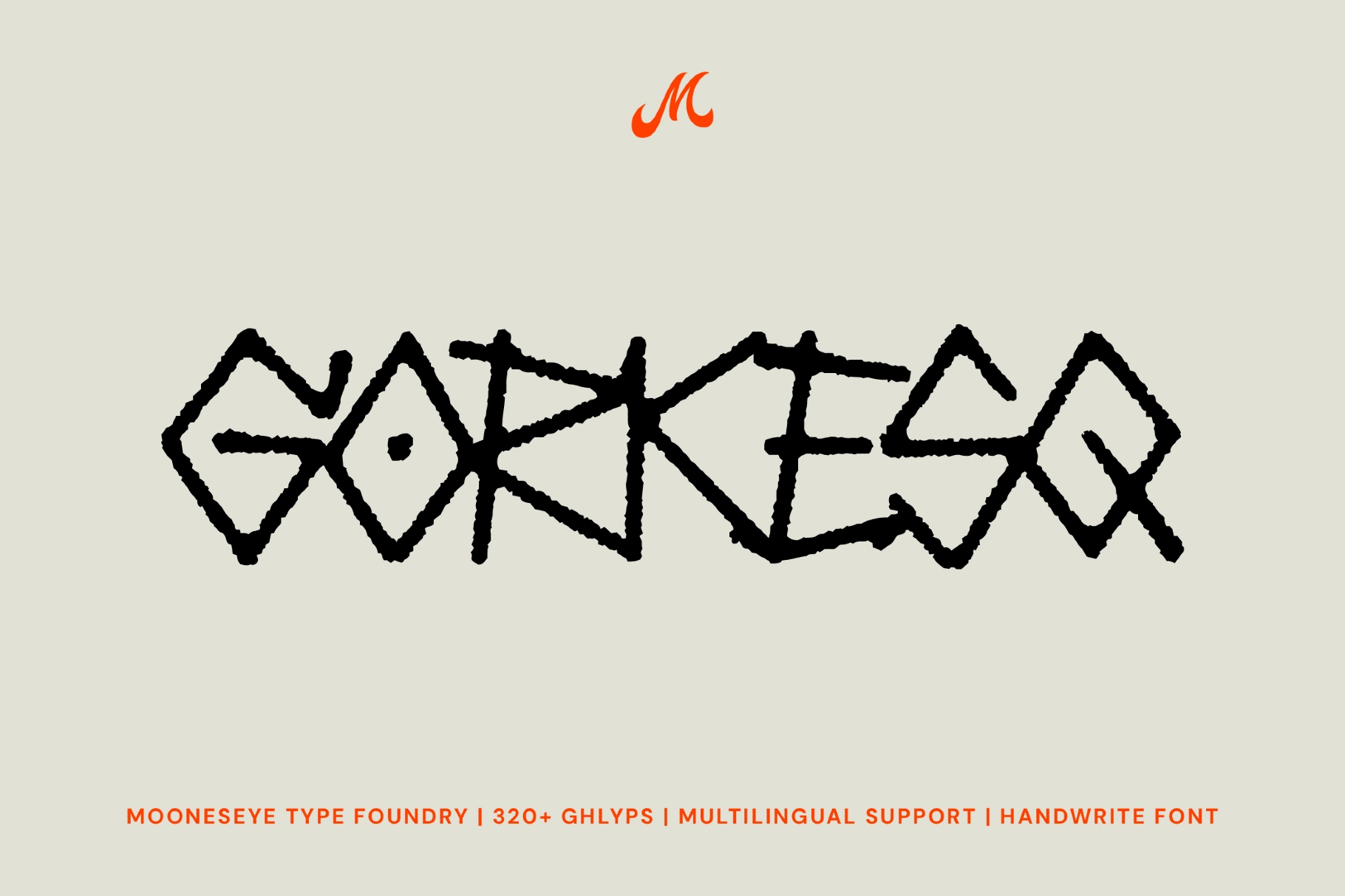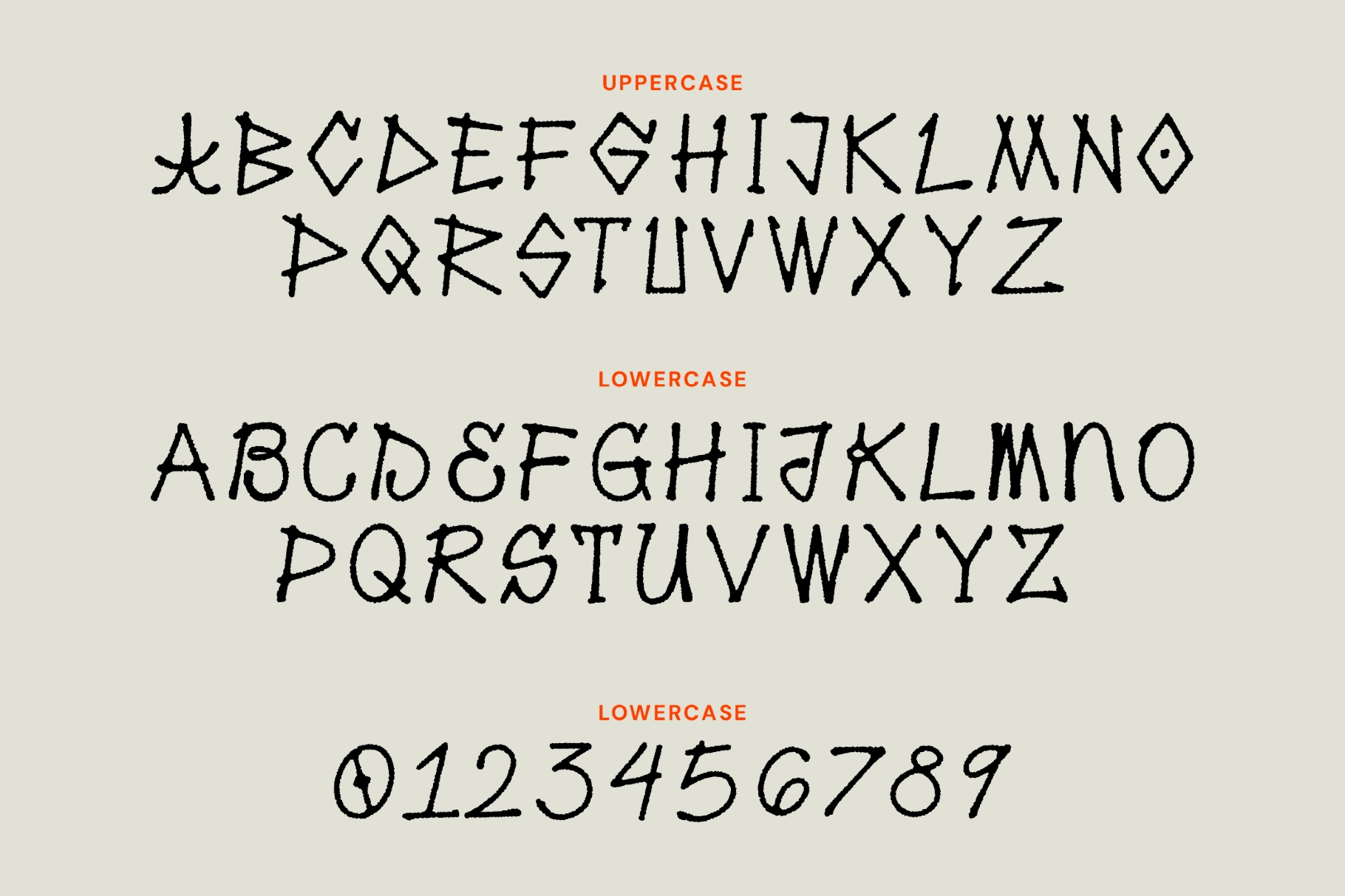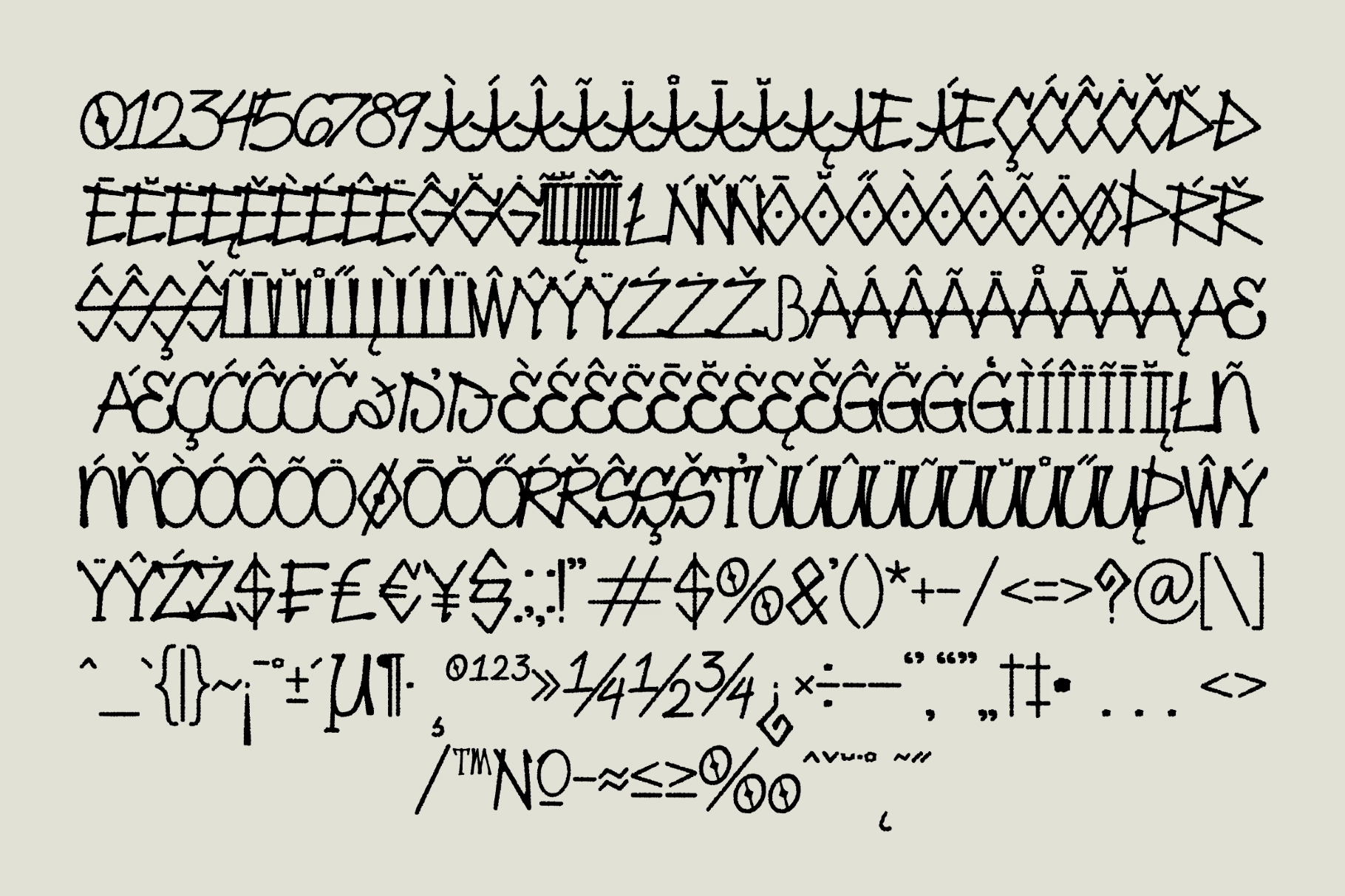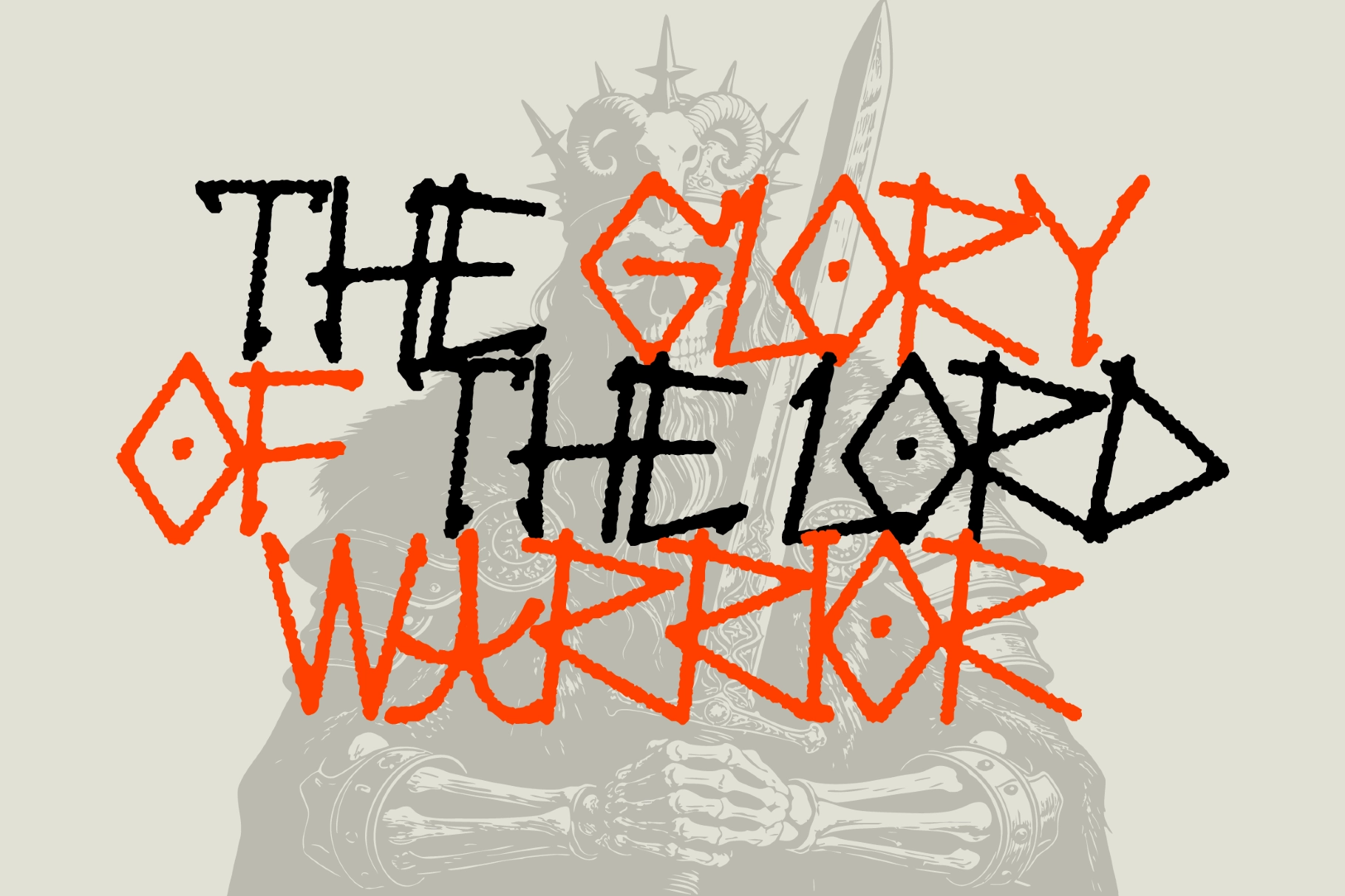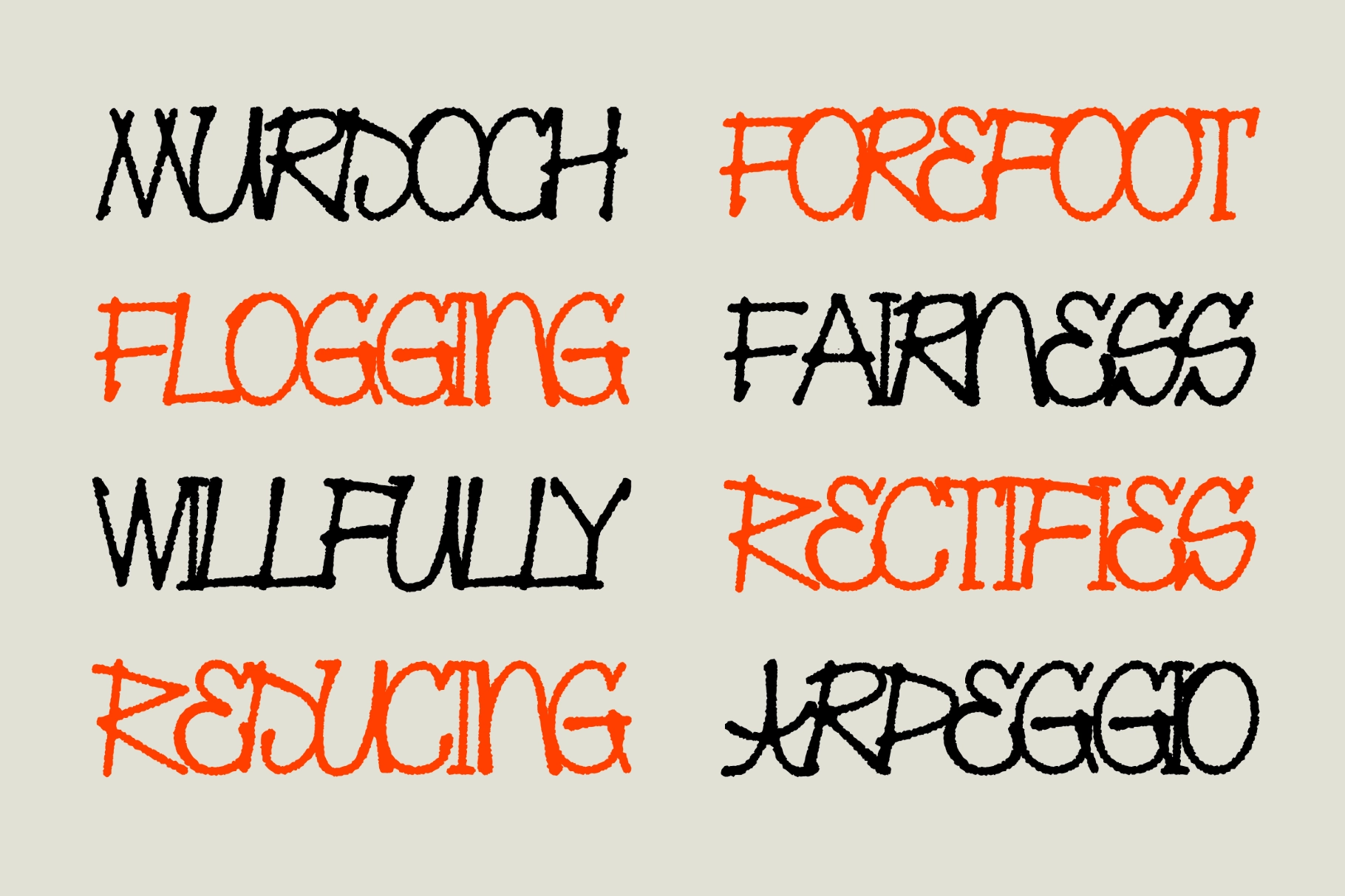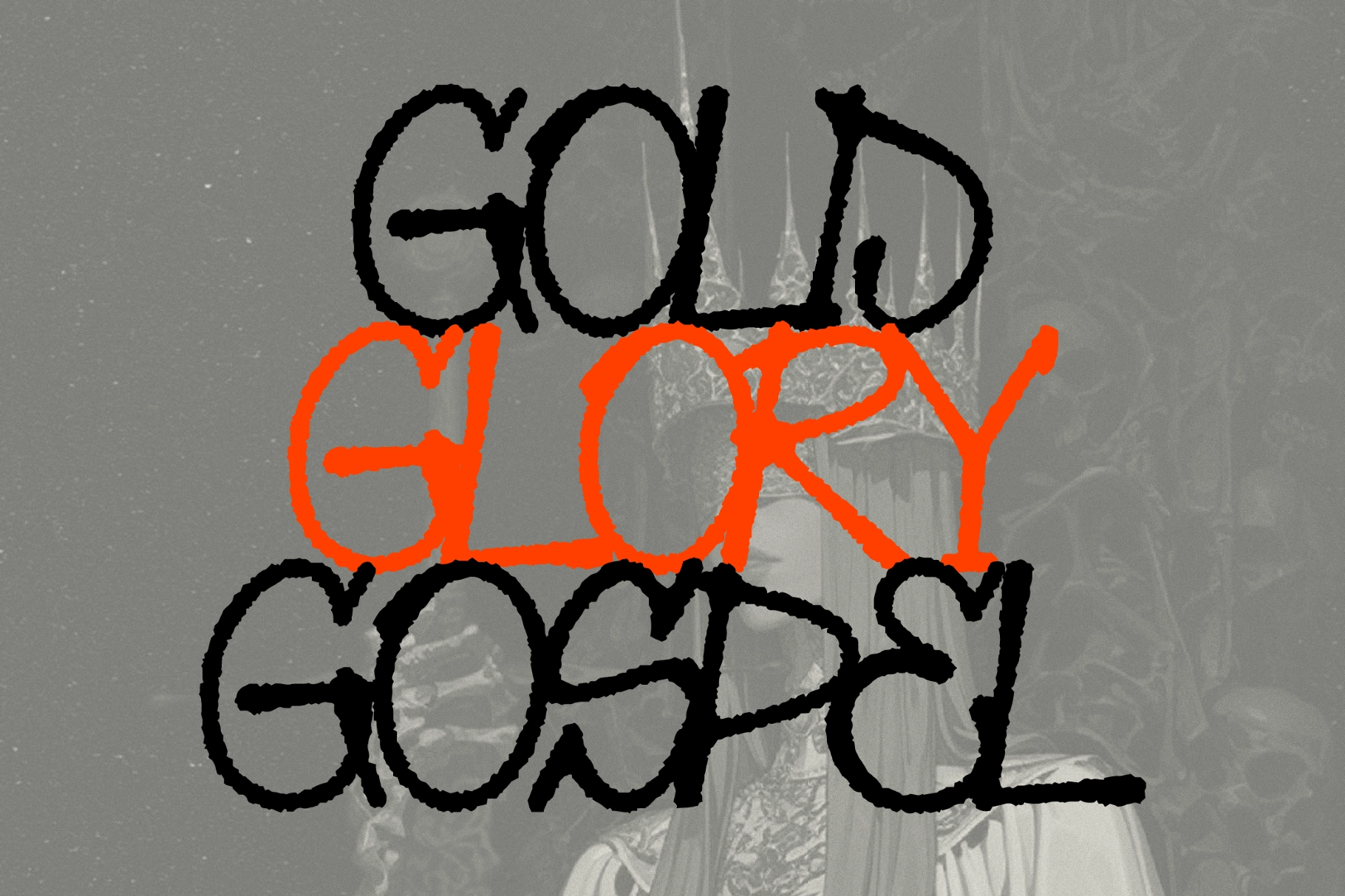
Gorkesq - Ancient Handwritten Display Font
GORKESQ
ITALIC
This hand-drawn display font has jagged strokes, rough ink texture, rune-like shapes, and a raw symbolic rhythm. Its uppercase characters are sharp and angular, while the lowercase forms are looser and stranger, giving dark fantasy work a primitive graphic bite.
Gorkesq works well for folklore book covers, horror game titles, metal posters, underground streetwear, tattoo studio branding, occult graphics, album artwork, fantasy merch, zines, festival posters, dark editorial layouts, and experimental logos. The font is best for short phrases, bold marks, and dramatic headlines where clean manners would ruin the room.
- Uppercase & lowercase
- Numbers & punctuation
- 320+ glyphs